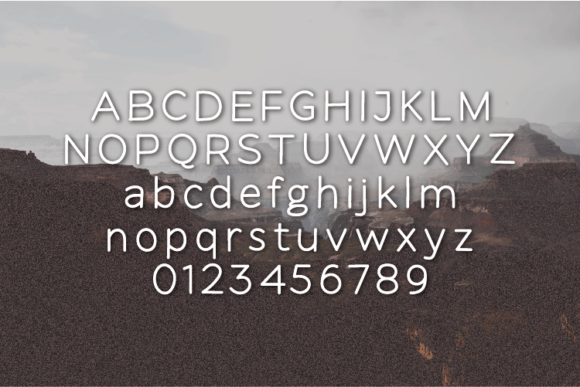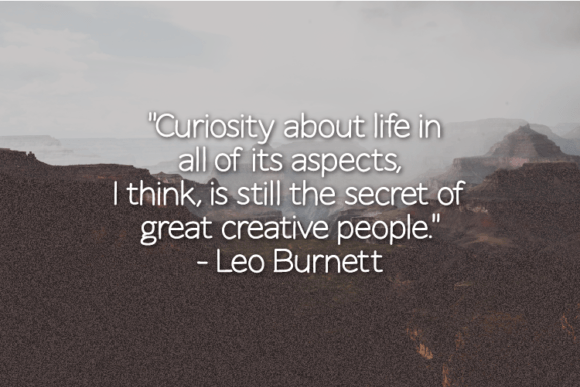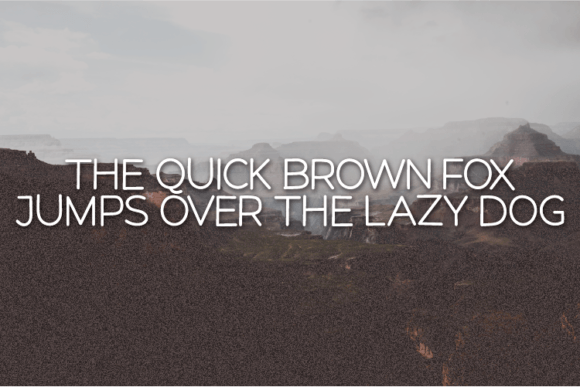
Introducing Dynamic Font: Elevate Your Craft with Elegance and Style
In the world of design, typography plays a crucial role in conveying messages, expressing creativity, and setting the tone for a brand or product. Among the numerous fonts available, Dynamic Font stands out as a remarkable sans serif typeface that embodies a natural and elegant style. This casual yet neat font is designed to enhance your craft with minimal effort, making your product shine brighter than the competition.
The Essence of Dynamic Font
Dynamic Font is characterized by its clean lines, simple shapes, and a friendly appearance that makes it approachable and easy to read. Its sans serif design ensures a modern look that can seamlessly integrate into various design projects, from digital platforms to print materials. The elegance of Dynamic Font lies in its balanced strokes and harmonious proportions, which contribute to its readability and aesthetic appeal.
Key Features of Dynamic Font
• Natural and Elegant Style: Dynamic Font boasts a unique blend of casualness and sophistication, making it suitable for a wide range of applications.
• High Readability: The clear and simple design of Dynamic Font ensures that your message is conveyed effectively, whether in body text or headings.
• Versatility: This font is highly versatile and can be used in various contexts, including branding, advertising, web design, and crafting.
• Easy to Pair: Dynamic Font can be easily paired with other fonts to create stunning contrasts and hierarchies in your typography.
Applications of Dynamic Font
The versatility of Dynamic Font makes it an excellent choice for designers and crafters across different fields. Here are some of the areas where Dynamic Font can make a significant impact:
• Branding and Logo Design: Create memorable and elegant logos that stand out.
• Digital Marketing Materials: Enhance your website, social media posts, and email newsletters with a modern and clean typography.
• Print Design: From brochures and flyers to business cards and posters, Dynamic Font brings a professional yet friendly touch.
• Crafting and DIY Projects: Add a personal and stylish element to your crafting projects, such as handmade cards, journals, and signage.
Tips for Using Dynamic Font Effectively
To maximize the potential of Dynamic Font, consider the following tips:
• Experiment with Sizes: Play with different font sizes to create visual hierarchies and emphasize key messages.
• Color Matters: Choose colors that complement the elegance of Dynamic Font and align with your brand’s palette.
• Mix and Match: Don’t be afraid to pair Dynamic Font with other typefaces to add depth and interest to your designs.
• Consider Line Spacing: Ensure adequate line spacing for better readability, especially in longer texts.
Dynamic Font is more than just a typeface; it’s a tool that can elevate your design work and make your products stand out. Its natural elegance, versatility, and readability make it an excellent choice for designers and crafters looking to add a touch of sophistication to their projects. Whether you’re working on a branding campaign, a digital project, or a crafting endeavor, Dynamic Font is sure to enhance your craft with little effort, setting you apart from the competition.
Embrace the elegance and versatility of Dynamic Font in your next project and experience the difference it can make.